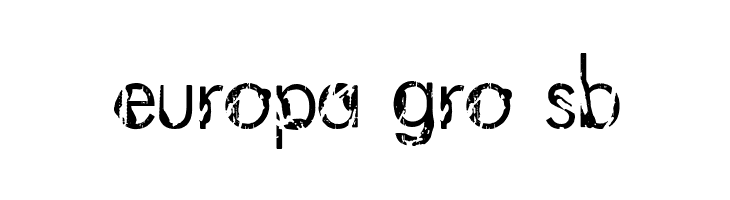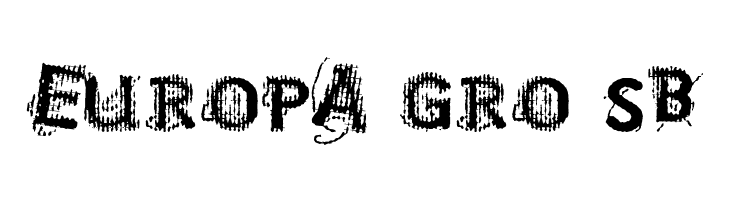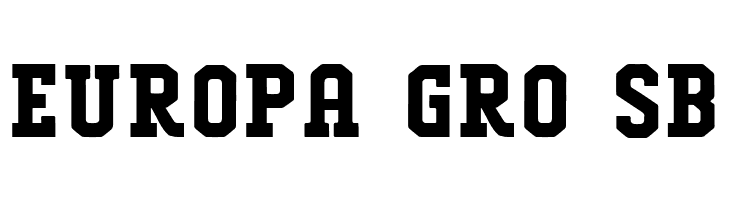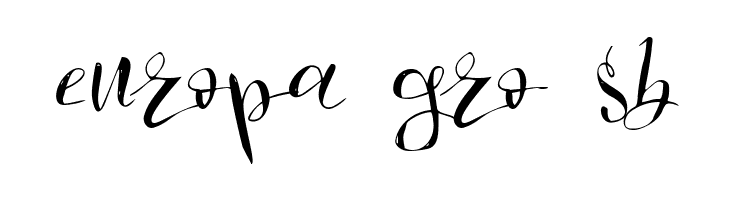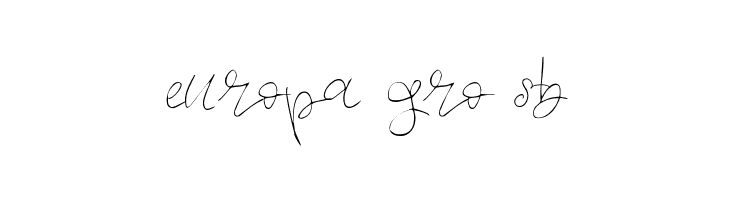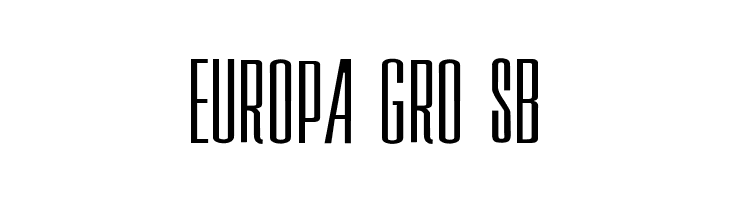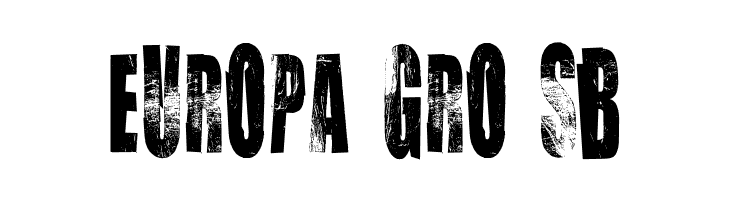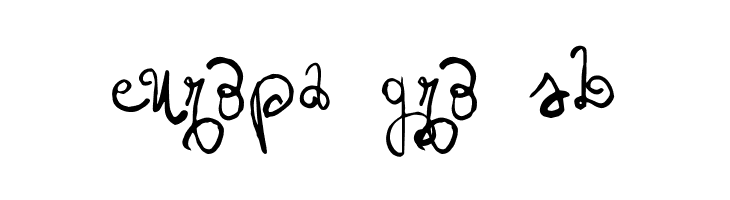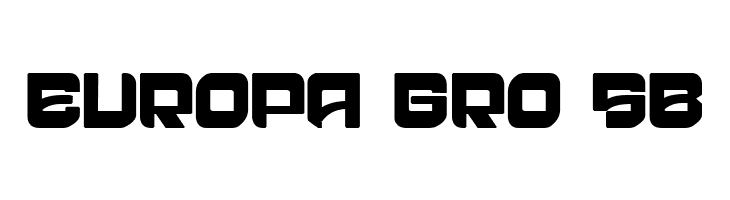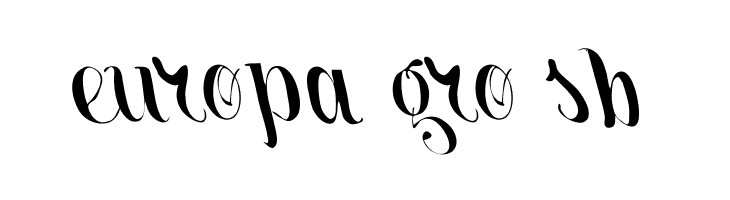
A distressed, grunge-style font with a textured, worn appearance.
A distressed, grungy font with a chaotic, textured appearance.
A bold, geometric font with an industrial and robust style.
A dynamic and flowing script font with elegant, artistic letterforms and decorative flourishes.
An elegant, flowing script font with intricate, delicate strokes.
A tall, narrow font with a modern and striking appearance, featuring tight character spacing.
A bold, distressed font with a grunge texture and high contrast.
An ornate and decorative font with intricate swirls and curls.
Bold, geometric font with a futuristic style.
An elegant, flowing script font with decorative swirls and flourishes.